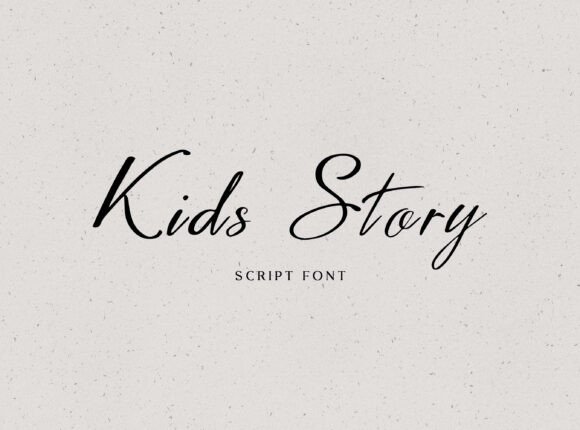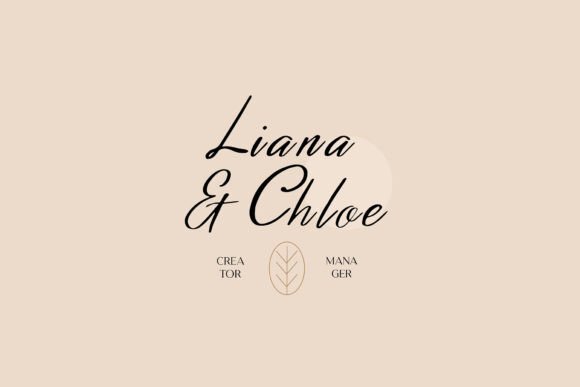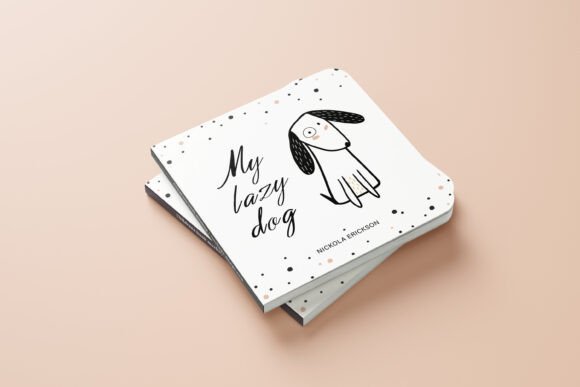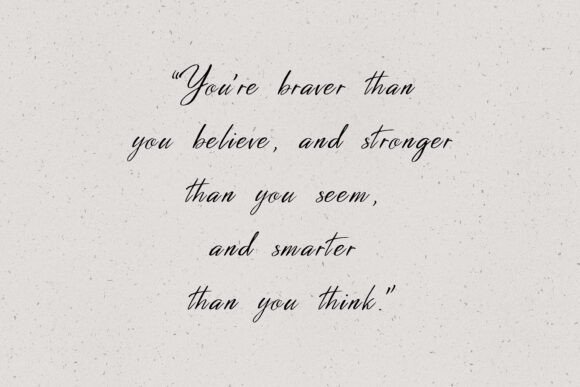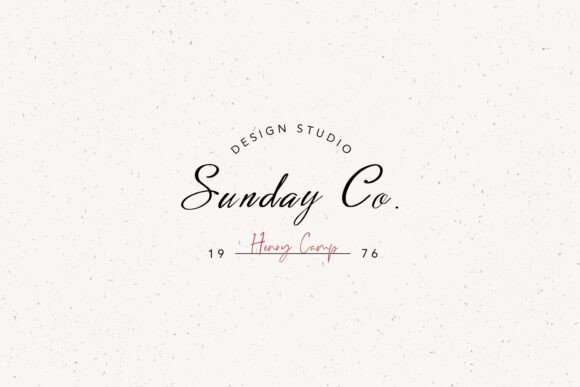
The Joy of Handwritten Stories
Do you remember the excitement of creating your first story as a child? The thrill of using colorful markers and crayons to bring your imagination to life? For many of us, that spark of creativity never truly fades, and we continue to seek out new ways to express ourselves through art and storytelling.
For designers looking to add a touch of whimsy and personality to their projects, there’s a font that’s sure to bring back memories of those childhood creative moments: Kids Story Font. This playful, cursive font is designed to resemble handwritten text, making it perfect for adding a personal touch to stories, cards, and art.
Whether you’re a seasoned designer or just starting out, Kids Story Font is a valuable addition to any toolkit. Its versatility and charm make it a great choice for a wide range of projects, from children’s books to wedding invitations.
Kids Story Font Key Features
- Unique Hand-Drawn Style: The Kids Story Font features a distinctive hand-drawn style that adds a personal touch to any design.
Kids Story Font Review
As a designer, I was excited to dive into the Kids Story Font and see what it had to offer. Here are my honest thoughts on this font.
- Unique and playful design: The font has a whimsical feel that’s perfect for kids’ content.
- Clear and readable: The letters are well-spaced and easy to recognize, even for young readers.
- Fun and imaginative: The font’s design elements, like the rounded edges and subtle decorations, add a touch of magic to text.
- Limited character set: The font only includes a basic set of characters, which may not be sufficient for more complex text.
- Not suitable for body text: While the font is great for titles and headings, it may be too playful for larger blocks of text.
- May require adjustments: Depending on the design context, you may need to adjust the font size or spacing to get the best results.
The Kids Story Font is a delightful addition to any design project that requires a playful and imaginative touch. While it may have some limitations, its unique design and clear readability make it a great choice for titles, headings, and other smaller text elements.
Use Kids Story Font for children’s book illustrations, educational materials, and fun graphics.
Experiment with different font sizes and colors to create a playful and engaging design.
Combine Kids Story Font with other creative elements, such as illustrations and graphics, to create a unique and eye-catching visual style.
Alternatives to Kids Story Font
Great Vibes is a modern, cursive script font that is perfect for adding a touch of elegance to children’s books and educational materials. It has a playful yet sophisticated feel that makes it suitable for a wide range of designs. Compared to Kids Story Font, Great Vibes has a more refined and polished look, making it ideal for older children and young adults.
Lobster is a fun, cursive script font that is great for creating a playful and whimsical atmosphere in children’s designs. It has a casual, handwritten feel that makes it perfect for casual children’s books, educational materials, and even advertising campaigns. Compared to Kids Story Font, Lobster has a more relaxed and casual vibe, making it ideal for younger children and families.
Playfair Display is an elegant, high-end font that is perfect for adding a touch of sophistication to children’s designs. It has a luxurious, vintage feel that makes it suitable for high-end children’s books, educational materials, and even luxury brands. Compared to Kids Story Font, Playfair Display has a more formal and elegant look, making it ideal for older children and high-end audiences.